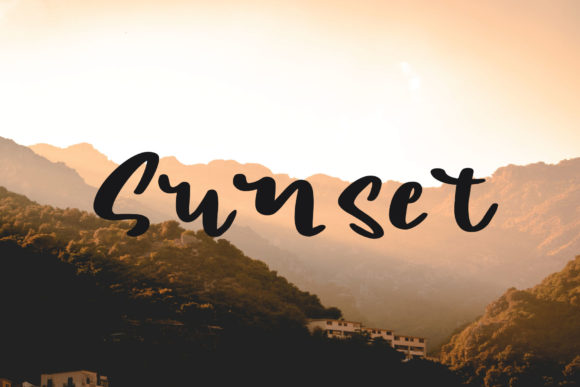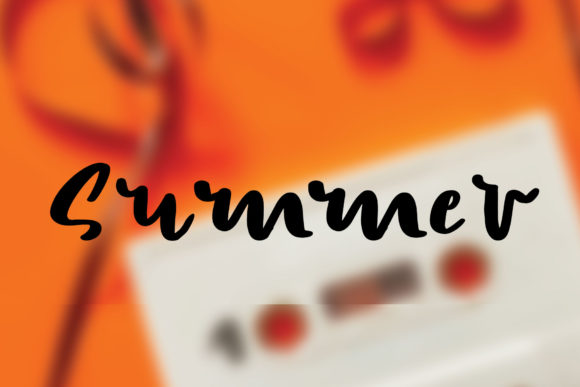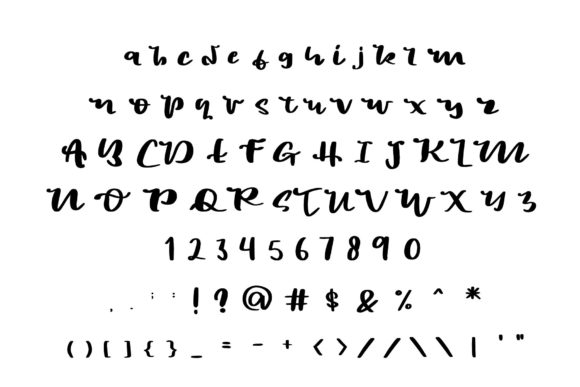
Introduction to Lamborgini Font
Have you ever stumbled upon a beautiful handwritten quote or a playful social media post that immediately caught your attention? For designers, moments like these spark inspiration and motivate us to create something truly special. In this article, we’ll delve into the world of Lamborgini Font, a high-quality script that embodies the joy of everyday life.
With its vibrant lettering and transparent background, the Lamborgini Font is a valuable design resource that can elevate any creative project. Whether you’re working on a branding campaign, a social media post, or a simple greeting card, this font is sure to add a touch of playfulness and sophistication. In this article, we’ll explore the unique characteristics of the Lamborgini Font and discover why it’s a must-have for designers.
Lamborgini Font
- High-quality design resource for creative projects, suitable for use in logos, branding, and marketing materials.
- Unique, bold font style with a transparent background, allowing for easy customization and layering.
- Designed to be highly legible at a variety of resolutions, from 72 dpi to 300 dpi.
- Perfect for use in digital and print projects, including business cards, brochures, and website design.
Honest Review: Lamborgini Font
I recently had the chance to work with the Lamborgini Font, and I must say it’s a great addition to any high-quality, creative project. This design resource is perfect for those looking for a sleek and modern touch.
What works well: ✨ The Lamborgini Font is incredibly versatile and can be used in a variety of settings, from logos to typography. The transparent background makes it easy to incorporate into any design, and the font itself is highly customizable.
- Highly customizable and versatile
- Perfect for logos, typography, and other creative projects
- Transparent background for easy incorporation into designs